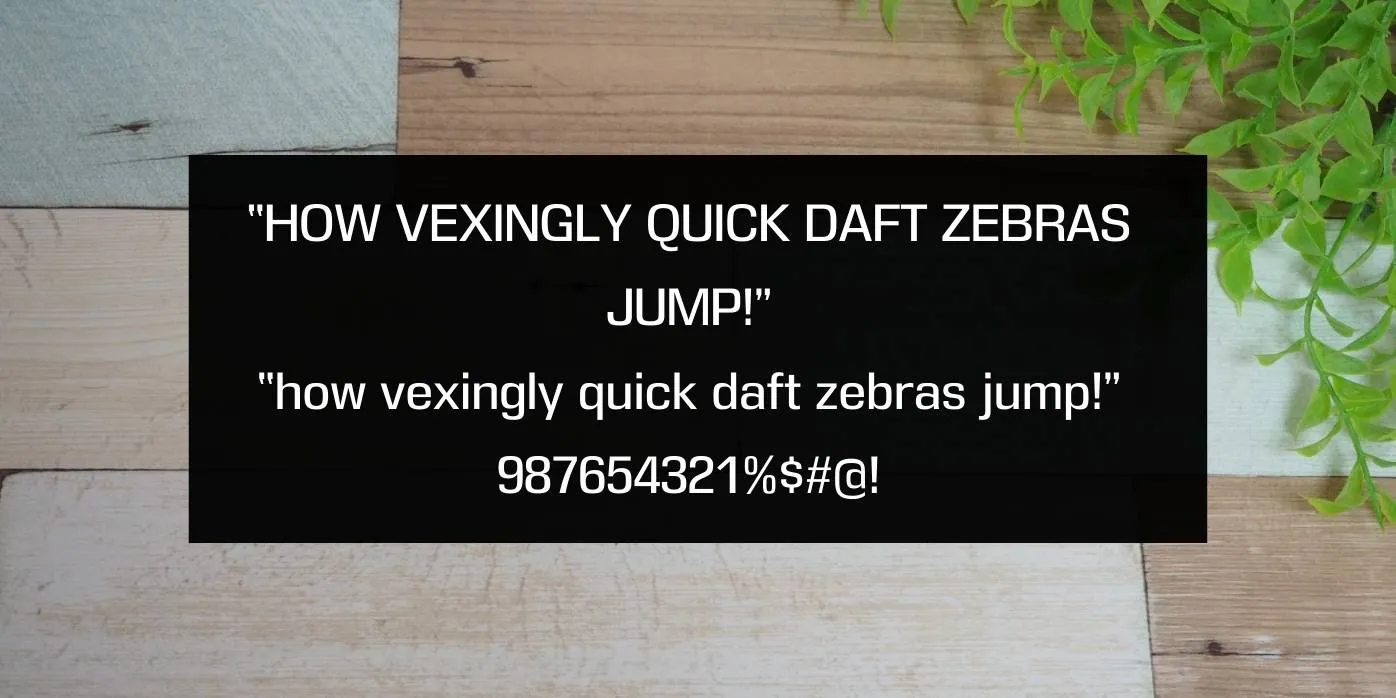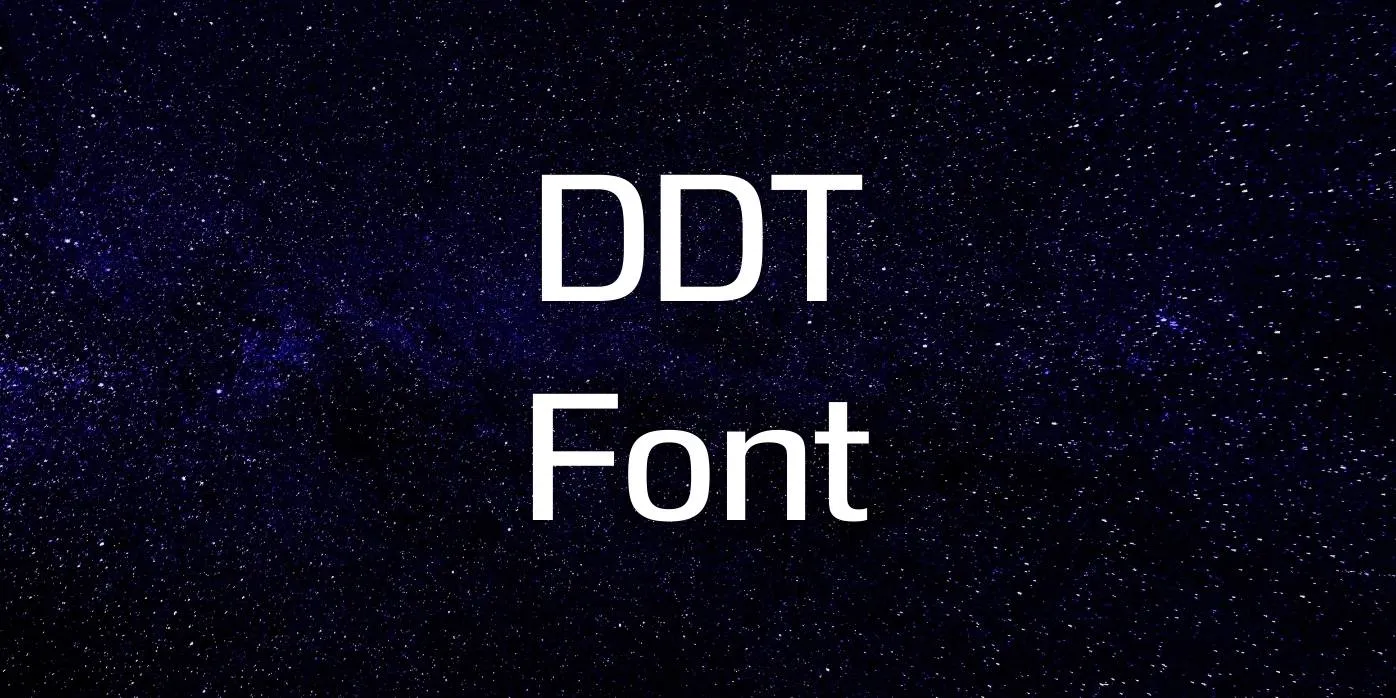
DDT Font
DDT Font is a sans serif typeface created in 2012 by Ray Larabie from Typodermic. The design is simple and clean, with straight lines and sharp angles. This is a versatile typeface that can be used for both digital and print applications. It is available in both regular and bold weights.
This font was designed with readability in mind and is therefore ideal for use in body text. There is an online font generator tool where you can easily generate this font. This font glyph is available in uppercase and lowercase letters, as well as numbers and punctuation marks. The typeface family works well with pairing neo sans font which is also a fancy category typeface you can have this from our website easily.